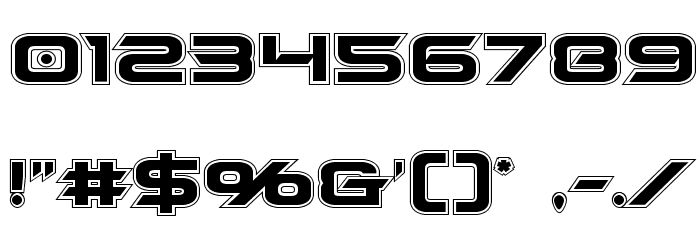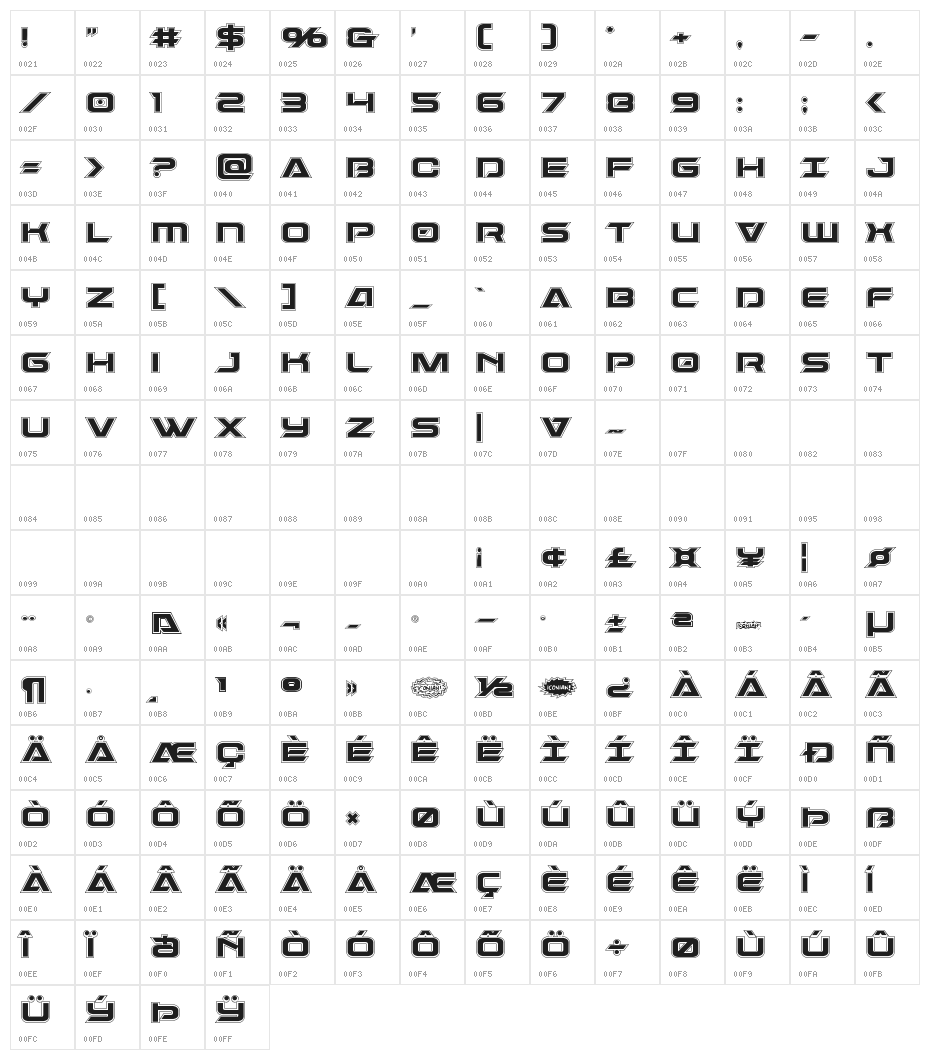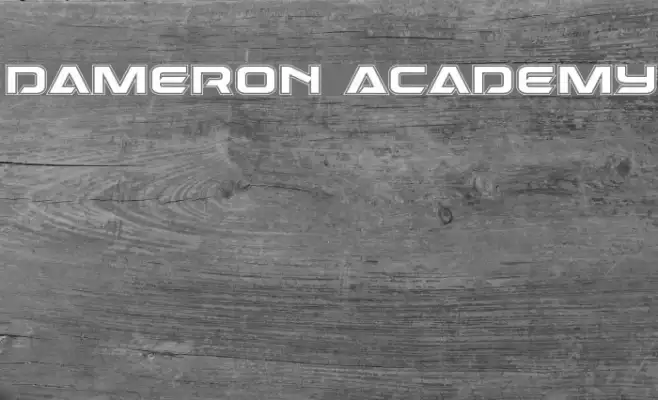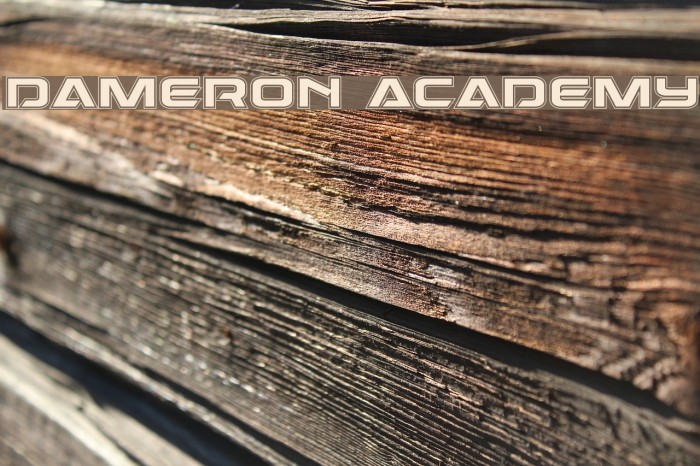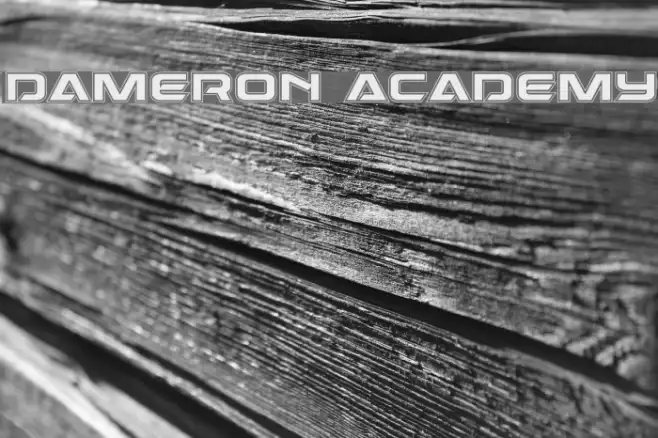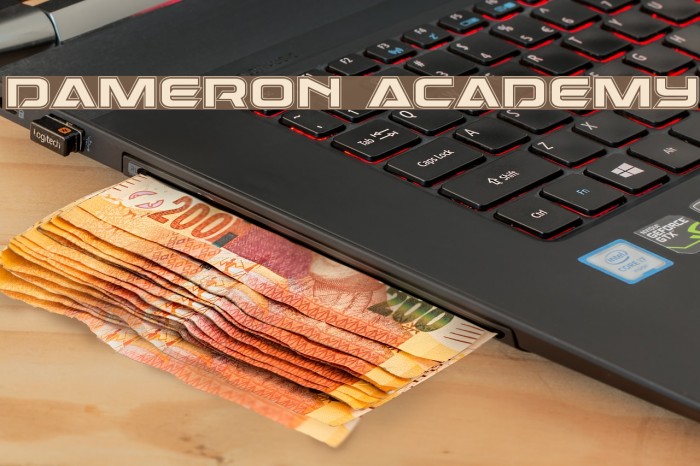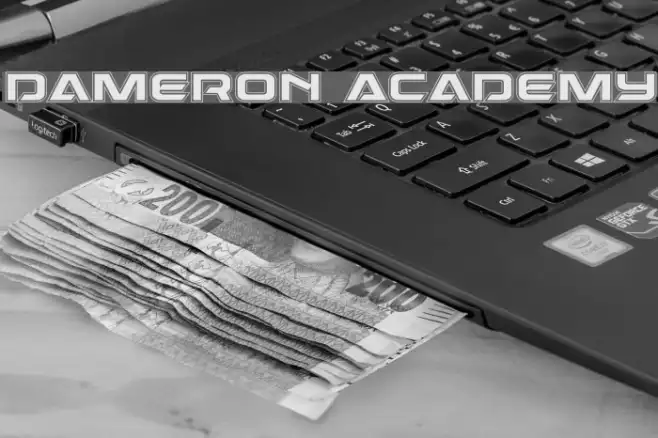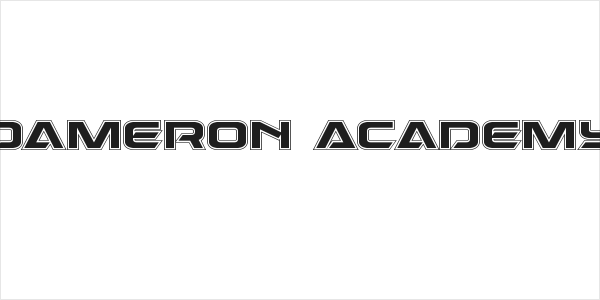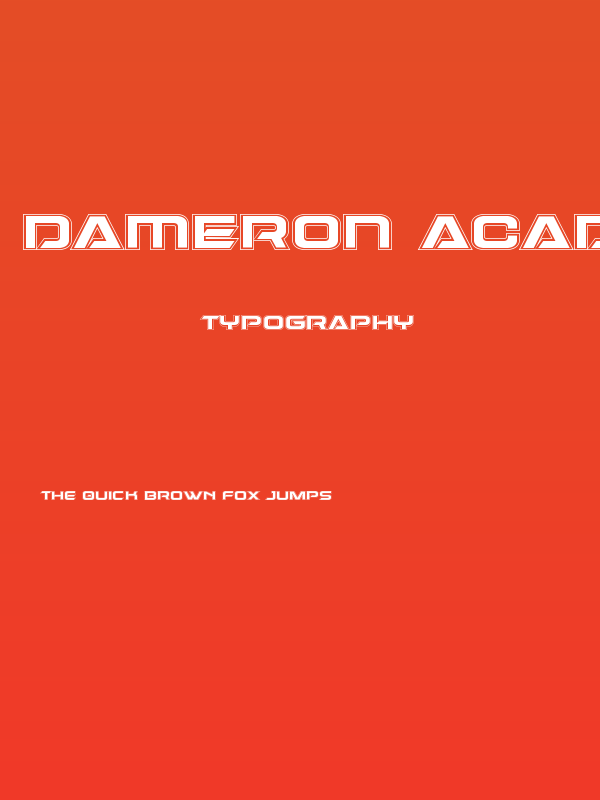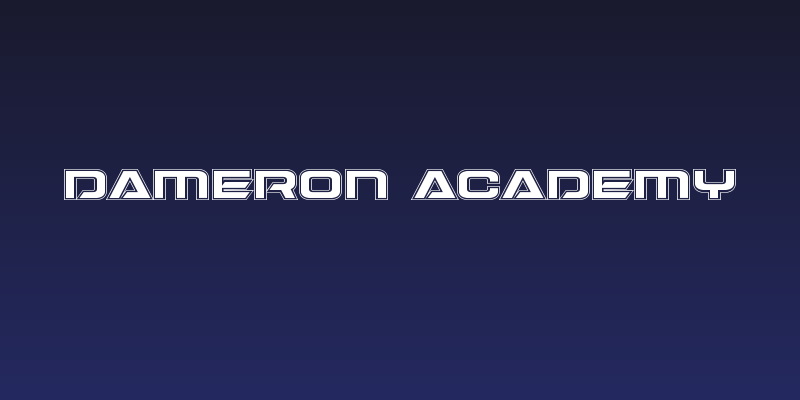
Dameron Academy Font
Dameron Academy Description
This font is a bold and futuristic typeface with a distinct geometric style. Each character is outlined with a thick border, creating a strong visual impact. The letters are angular and sharp, with a consistent width that gives a uniform appearance. The design features a modern aesthetic, suitable for projects that require a contemporary and edgy look. The numbers and special characters maintain the same bold and structured design, ensuring cohesion across all elements. This typeface is ideal for attention-grabbing headlines, logos, and branding materials that aim to convey a sense of innovation and modernity.
| Proposed Projects | Ideal for technology branding, sci-fi posters, video game titles, and modern advertising campaigns. |